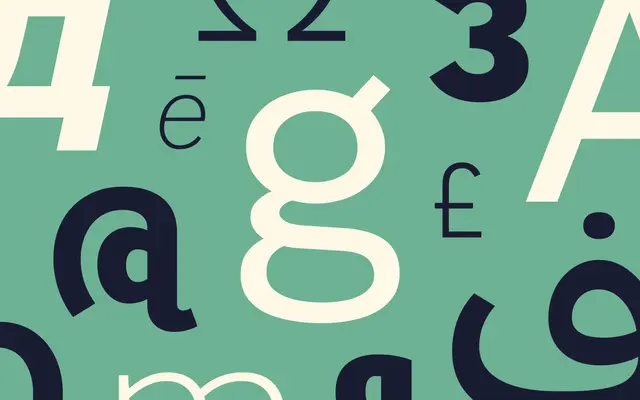
InterFace
Dalton Maag · Bruno Maag, Naïma Ben Ayed, Carlos De Toro, Angel Kwong · 2025
InterFace specimen from Dalton Maag
A hybrid sans by Bruno Maag and team that blends humanist, grotesque and industrial cues, with Arabic, Cyrillic, Greek and Latin support.
A sans by Bruno Maag with Naïma Ben Ayed, Carlos De Toro and Angel Kwong that mixes humanist warmth, grotesque rhythm and industrial structure. Dalton Maag points to a long track record from signage and billboards down to text and small print. With Arabic, Cyrillic, Greek, Latin and Latin Extended, it suits multilingual identity systems and infrastructure-scale signage.
Dalton Maag classifies InterFace as a sans typeface that combines humanist, grotesque and industrial features, with extensive weight range and a track record across signage, billboards, text and small print.